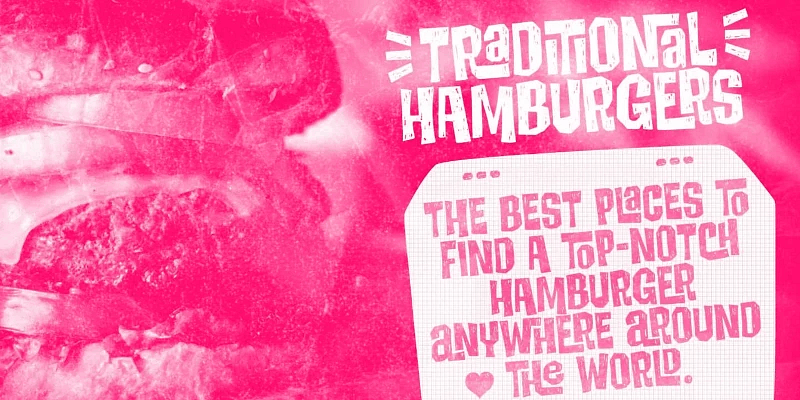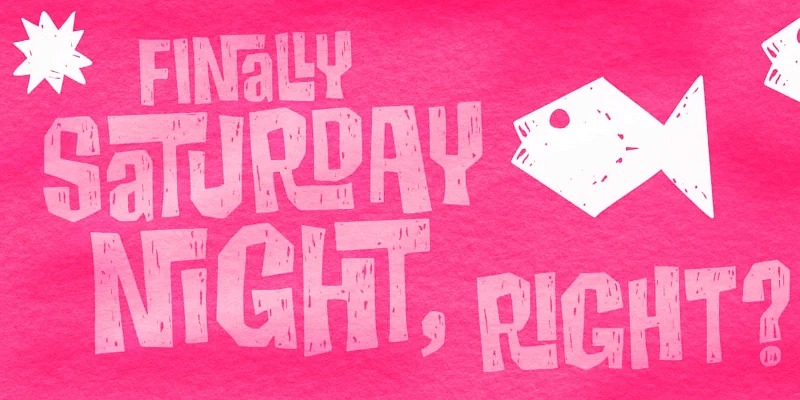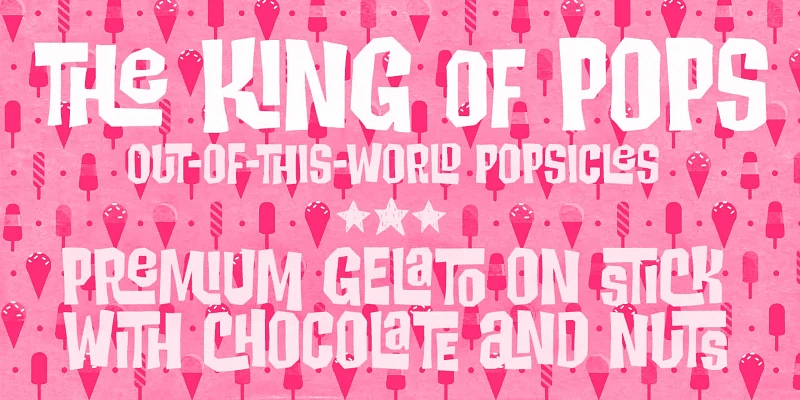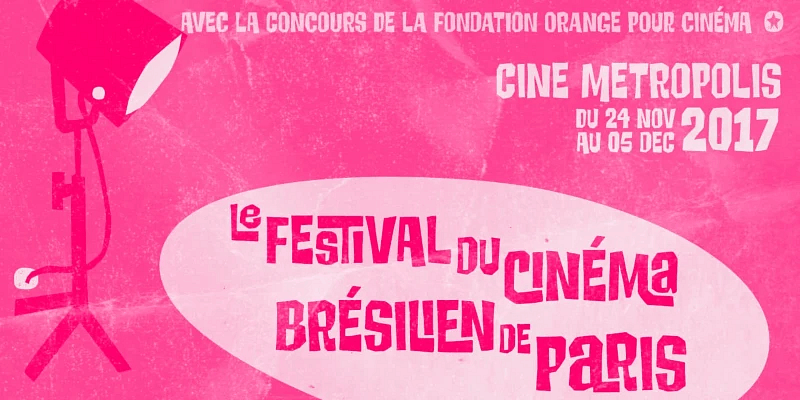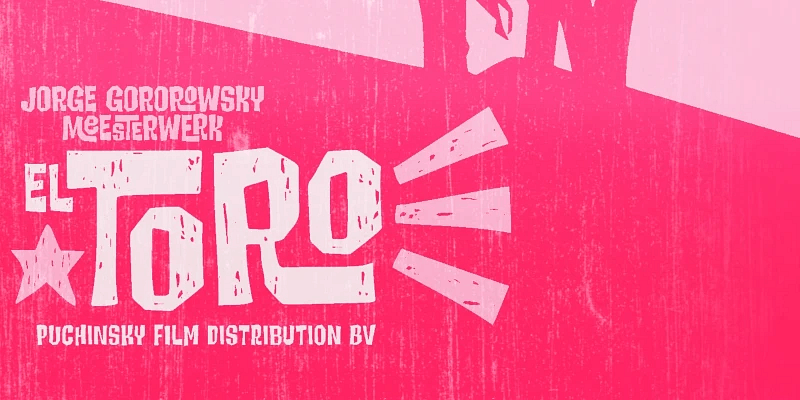
“Manihot is a cool, loud, high-impact display font inspired by the film posters of Italian artist Symeoni from the 1960s and 1970s. It combines assertive forms—Clean and Rough—with a cut-and-paste texture for a lively, screen-printed feel. Each letter comes with an alternate, allowing for creative variation within words. Also includes a handy set of dingbats! Perfect for impossible-to-ignore magazines, posters, book covers, and expressive branding. Give it a go!